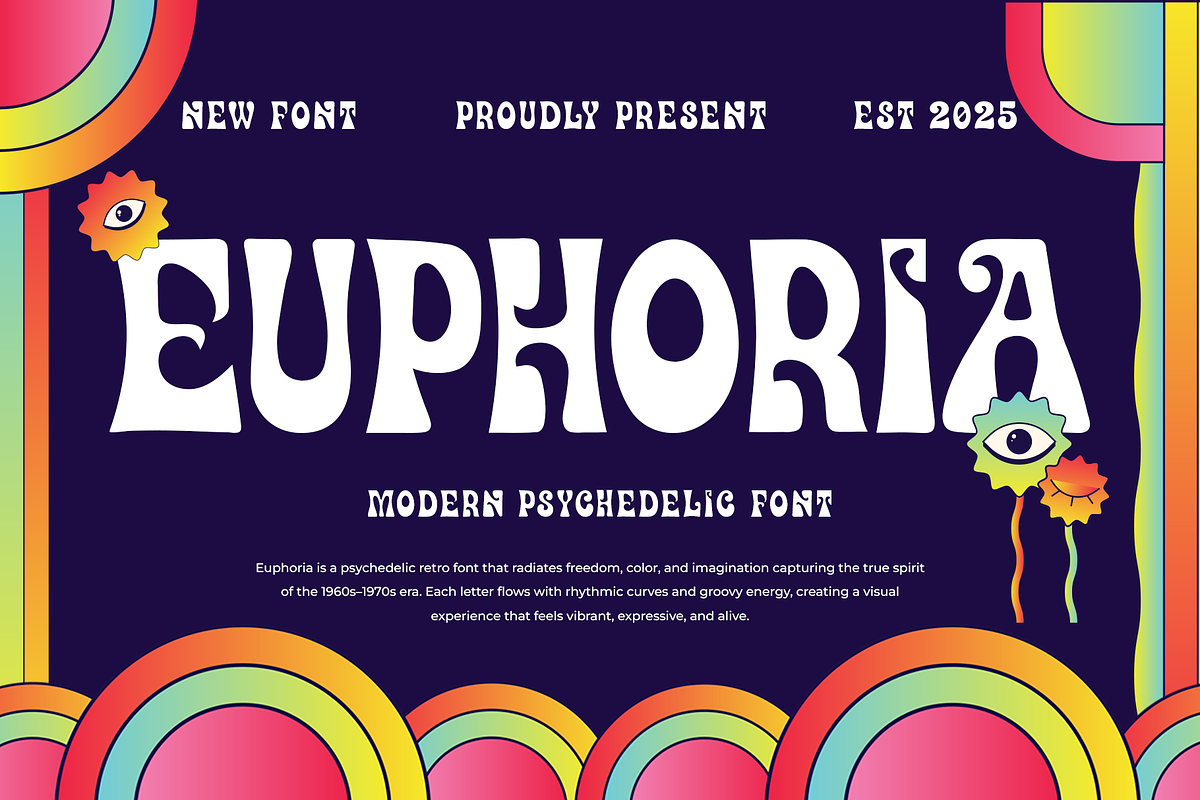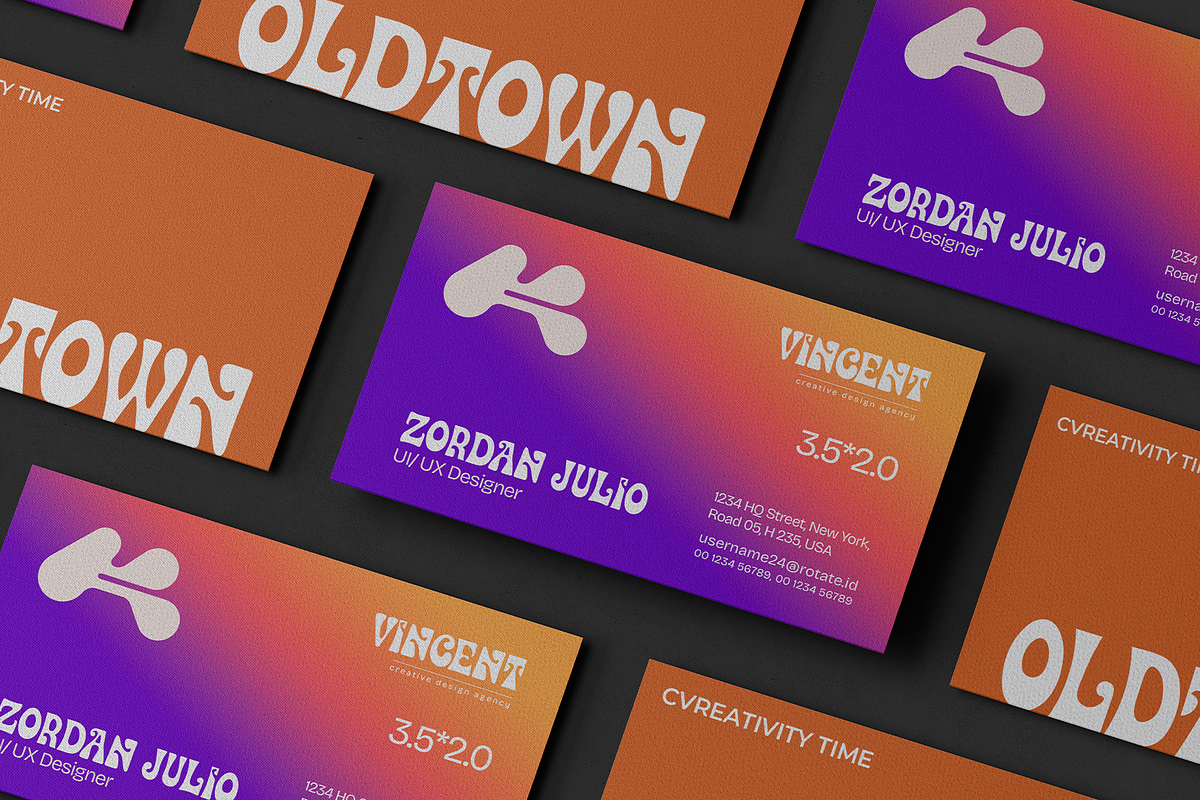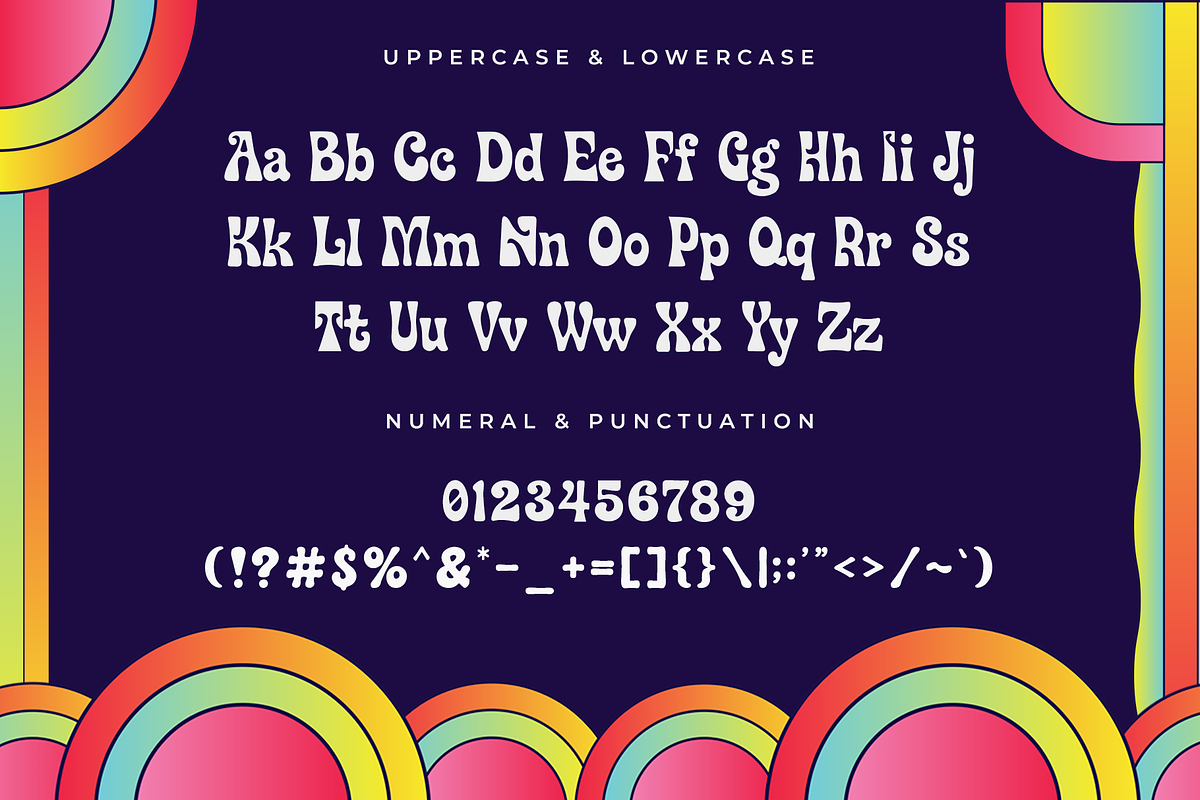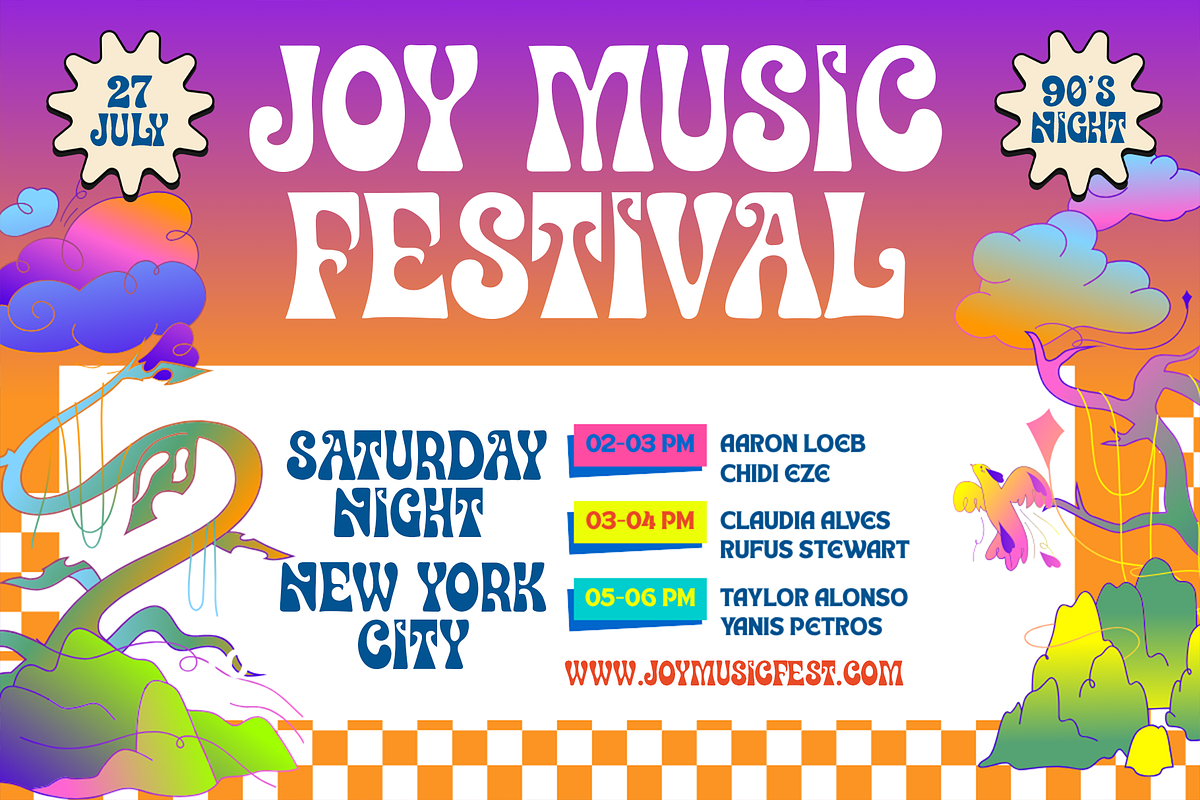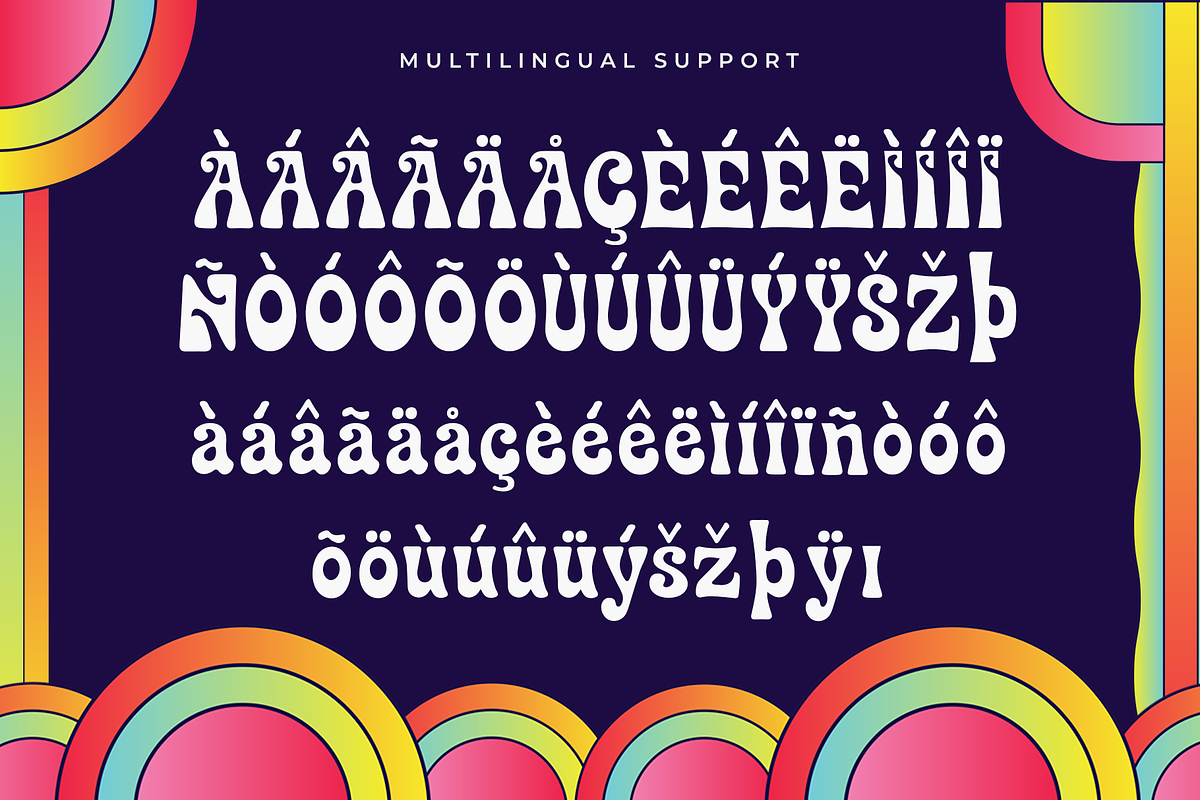
Euphoria–Modern Psychedelic Display
Euphoria – A Modern Psychedelic Display Font
Euphoria is a modern psychedelic display font designed to bring bold, vibrant energy into your creative projects. Inspired by 70s retro aesthetics yet crafted with a contemporary touch, this typeface features fluid curves, groovy shapes, and expressive letterforms that radiate personality.
Perfect for album covers, festival posters, branding, merchandise, social media graphics, and any design that calls for a unique retro flair, Euphoria offers a fresh twist on psychedelic typography while maintaining strong readability and visual impact.